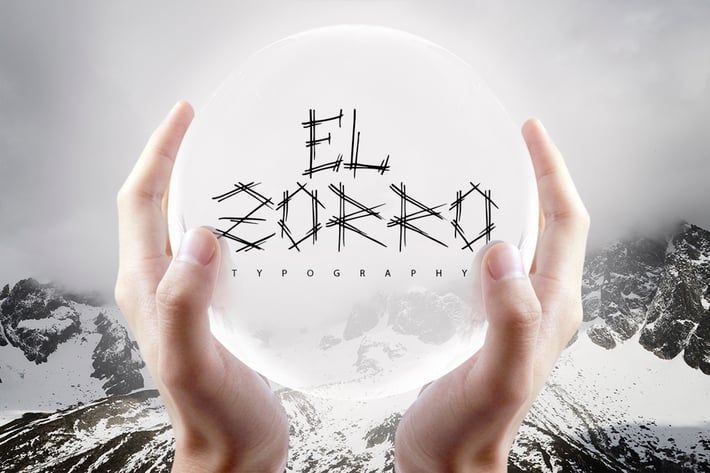
El Zorro Script Typeface
Every letter consists out of multiple thin pen strokes.
All uppercase. All letters. All numbers. All punctuations. All extensions. All symbols